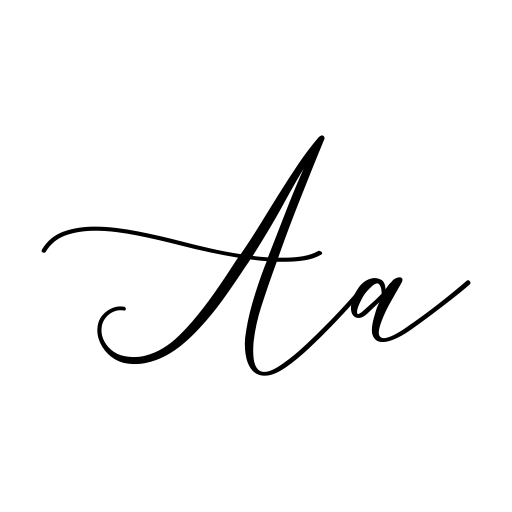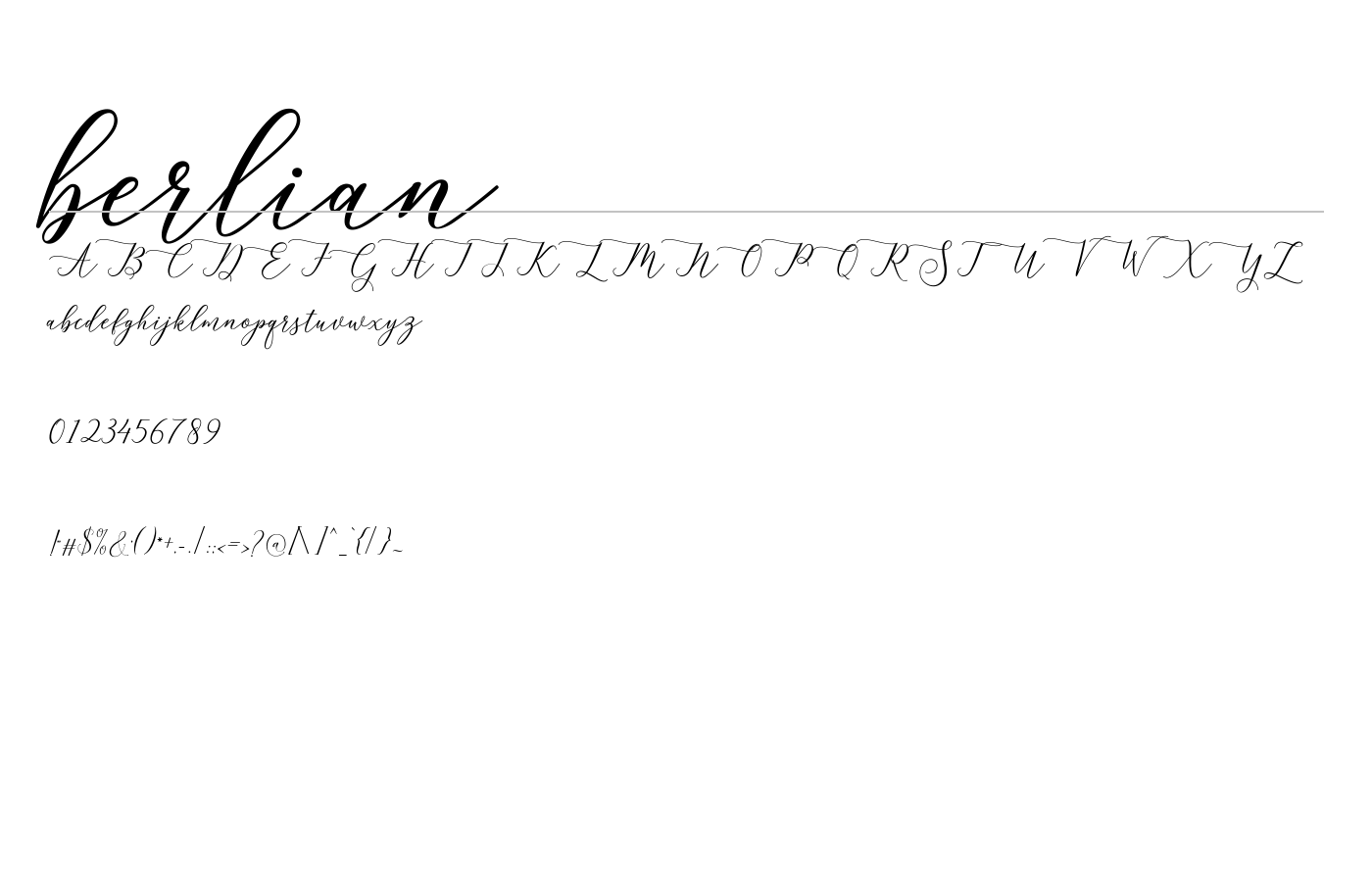
Berlian is a delicate and elegant script font characterized by its thin, flowing strokes and graceful, handwritten style. Its slender letterforms and subtle variations in line weight create a refined, sophisticated feel perfect for invitations, branding, and editorial projects that seek a touch of luxury and femininity. This font works beautifully in designs that require an airy, stylish look with a personal, artistic touch.
berlian Font
About berlian Font